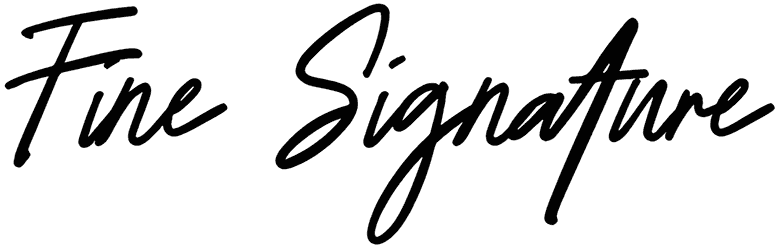
Fine Signature Font
Have you ever noticed that designs with natural and casual words can communicate much better with the audience? Fine Signature is a handwritten font with a slim face and a modern vibe. You can place this signature font on various projects from business cards to social media posts, and create an appealing mood.